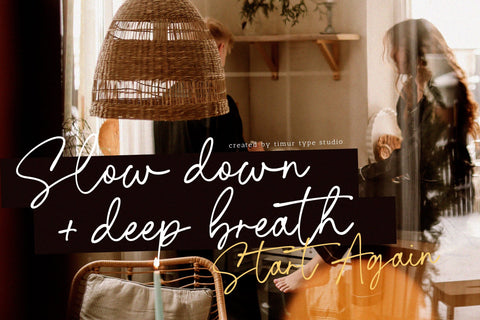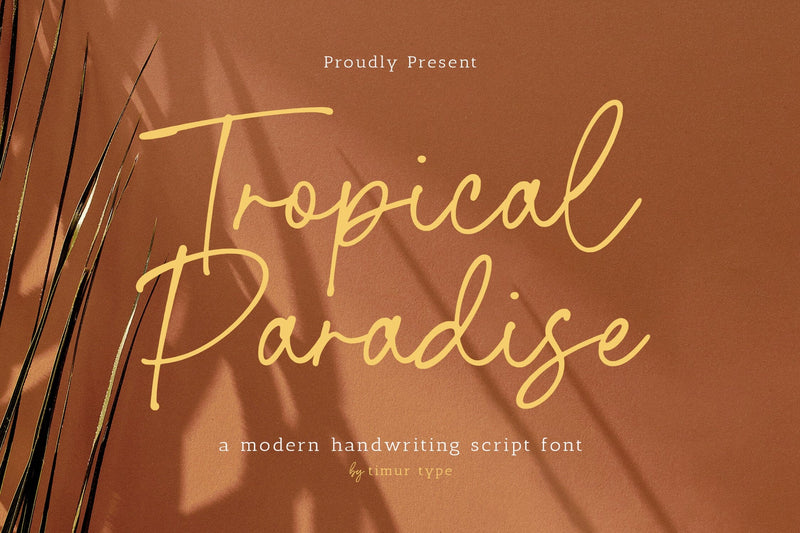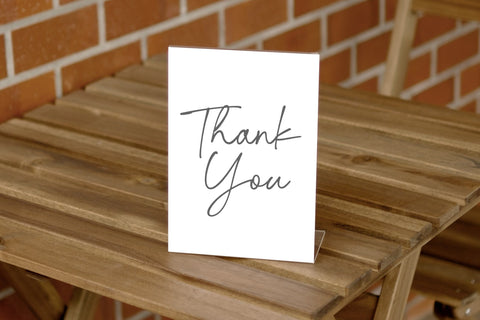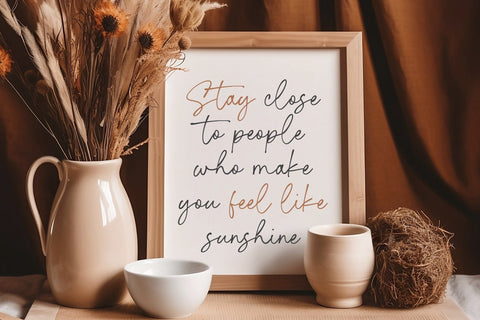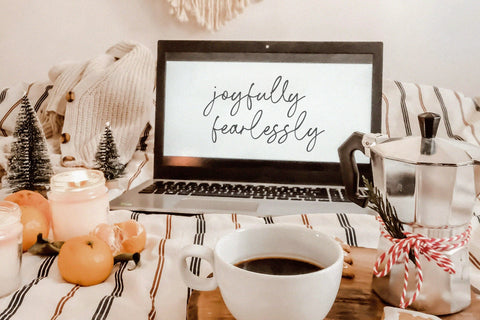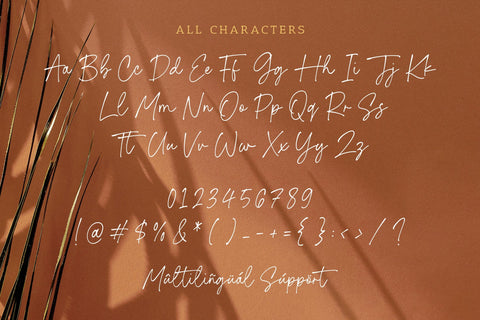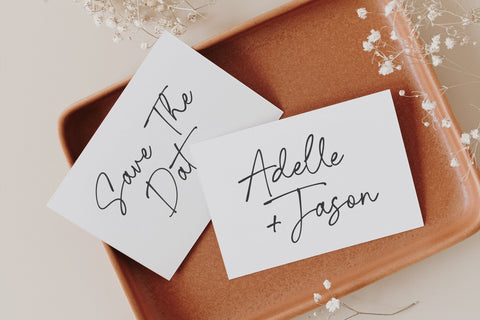
Tropical Paradise - Modern Handwriting Script Font
Tropical Paradise is a Modern Handwriting Script Font
This font is a vibrant and tropical choice for your design projects. With its bold and dynamic letterforms, this font embodies the spirit of a lush tropical getaway. The flowing strokes and playful curves give the Tropical Paradise font a modern and contemporary aesthetic, perfect for adding a trendy touch to your branding materials, posters, and social media graphics. Whether you're aiming for a fun and tropical vibe or a fresh and modern look, the Tropical Paradise font offers versatility and style. Embrace the vibrant energy of the Tropical Paradise handwriting script font and bring a taste of paradise to your designs
Tropical Paradise Font also supports multilingualism.